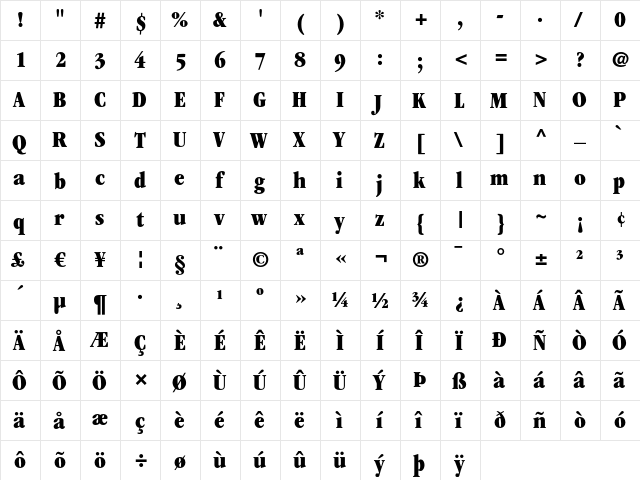
ITC Garamond LT Ultra Condensed
Design Context for ITC Garamond LT Typeface
ITC Garamond LT offers clean, dependable letterforms without strong stylistic allegiance, making it a practical choice for designers who need flexibility. Its slender proportions lend an understated elegance to any composition. The condensed width makes it efficient for tight spaces without sacrificing legibility.
Pro Tip: Use ITC Garamond LT in both headline and body roles to test its range before committing to a single application.